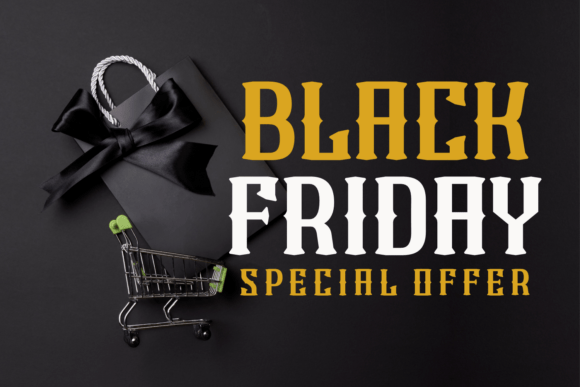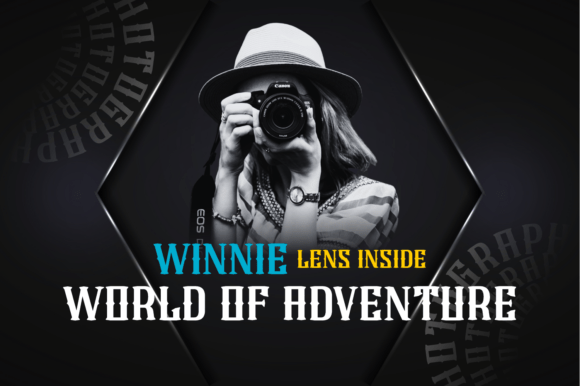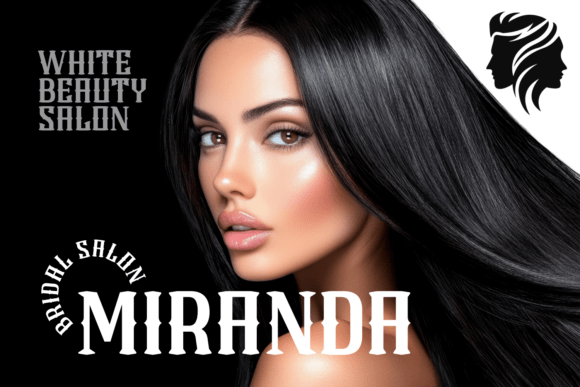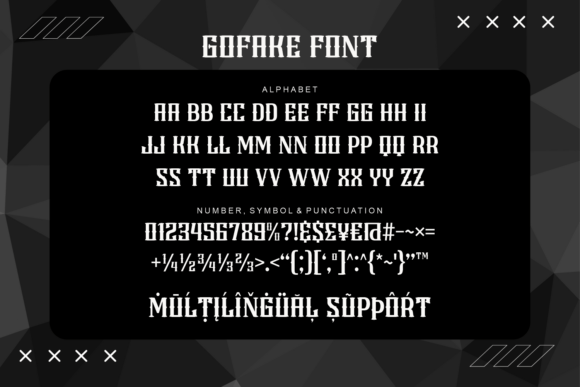
Gofake Font: Unleash Your Creativity with a Bold and Modern Blackletter Typeface
In the world of typography, fonts play a crucial role in conveying the tone and personality of a design. For designers and crafters looking to make a bold statement, Gofake font is an excellent choice. This modern blackletter font combines the traditional Gothic style with a contemporary edge, making it perfect for a wide range of applications.
The Unique Characteristics of Gofake Font
Gofake font boasts sharp, angular forms that exude a sense of intensity and strength. Its bold and modern design makes it an ideal choice for projects that require a fearless statement. The font’s Gothic roots are evident in its dramatic, curved lines and sharp serifs, while its contemporary twist adds a fresh and edgy feel.
Gofake font is incredibly versatile and can be used for a wide range of design projects. Some of the most popular applications include:
- Posters: Create eye-catching posters that demand attention with Gofake font. Its bold and modern design makes it perfect for advertising, promoting events, or showcasing a brand’s message.
- Streetwear: Add a touch of edginess to your streetwear designs with Gofake font. Its strong presence and fearless style make it an excellent choice for fashion brands looking to make a statement.
- Esports Logos: Take your esports branding to the next level with Gofake font. Its modern and bold design makes it perfect for creating logos that exude energy, competition, and excitement.
- Branding: Establish a strong brand identity with Gofake font. Its unique and memorable design makes it an excellent choice for companies looking to differentiate themselves from the competition.
- Album Covers: Create striking album covers that reflect the music’s tone and style with Gofake font. Its bold and modern design makes it perfect for showcasing an artist’s personality and music genre.
- Tattoo-Inspired Designs: Add a touch of boldness and intensity to your tattoo-inspired designs with Gofake font. Its strong presence and fearless style make it an excellent choice for creating unique and eye-catching designs.
Why Choose Gofake Font?
So, why choose Gofake font for your design projects? Here are just a few reasons:
- Unique and Memorable: Gofake font’s bold and modern design makes it stand out from the crowd. Its unique characteristics ensure that your designs will be remembered and noticed.
- Versatile: Gofake font can be used for a wide range of applications, from posters and streetwear to esports logos and branding.
- Easy to Read: Despite its bold and modern design, Gofake font is easy to read, making it perfect for body text and headlines.
- Customizable: Gofake font can be customized to fit your design needs. Experiment with different colors, sizes, and styles to create a unique look.
Tips for Using Gofake Font Effectively
To get the most out of Gofake font, here are some tips for using it effectively:
- Pair it with a Neutral Font: Pair Gofake font with a neutral font to create contrast and visual interest. This will help your design stand out and avoid overwhelming the viewer.
- Experiment with Colors: Gofake font looks great in bold and bright colors. Experiment with different colors to find the perfect combination for your design.
- Use it for Headlines: Gofake font is perfect for headlines and titles. Use it to create a bold and eye-catching statement that grabs the viewer’s attention.
Gofake font is a bold and modern blackletter font that is perfect for designers and crafters looking to make a fearless statement. Its unique characteristics, versatility, and ease of use make it an excellent choice for a wide range of design projects. Whether you’re creating posters, streetwear, esports logos, or branding, Gofake font delivers intensity and style. So, why settle for a ordinary font when you can make a bold statement with Gofake font?